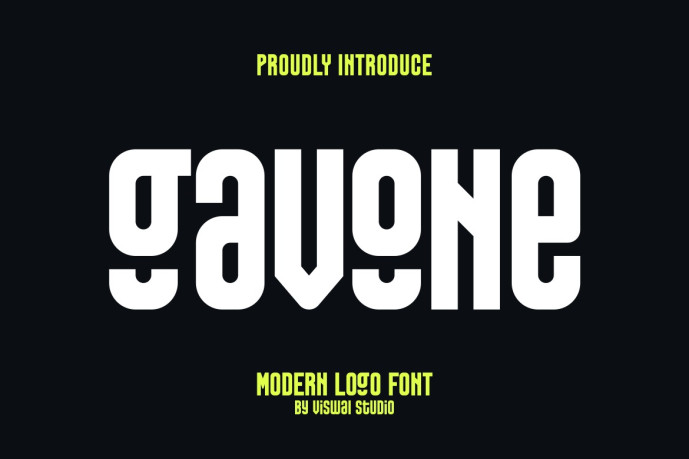
Gavone Font
Designer: Viswal
Gavone Font is a modern corporate logo font designed to communicate your message clearly and effectively. With its clean, professional look, Gavone works perfectly for logos, branding, labels, badges, magazines, posters, titles, covers, and more. The font includes uppercase and lowercase letters, numerals, punctuation, and OpenType features, making it versatile and easy to pair with other fonts to create strong and impactful designs.